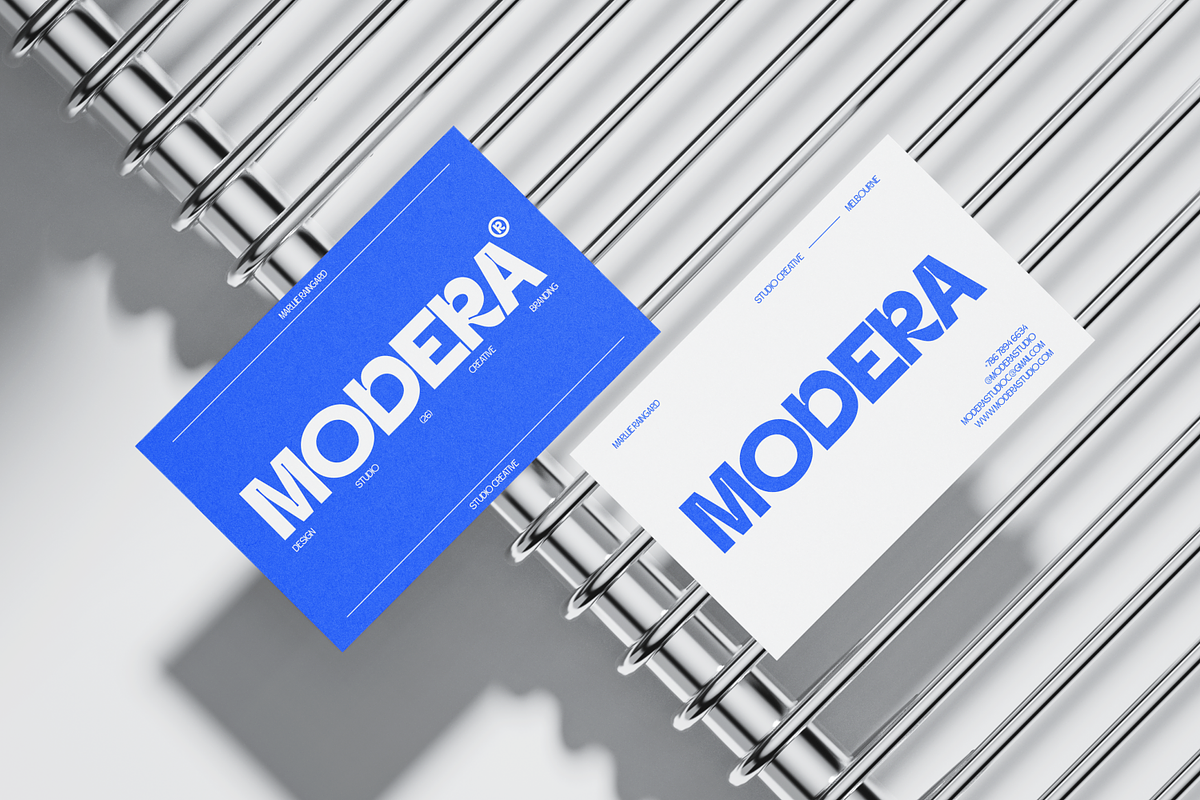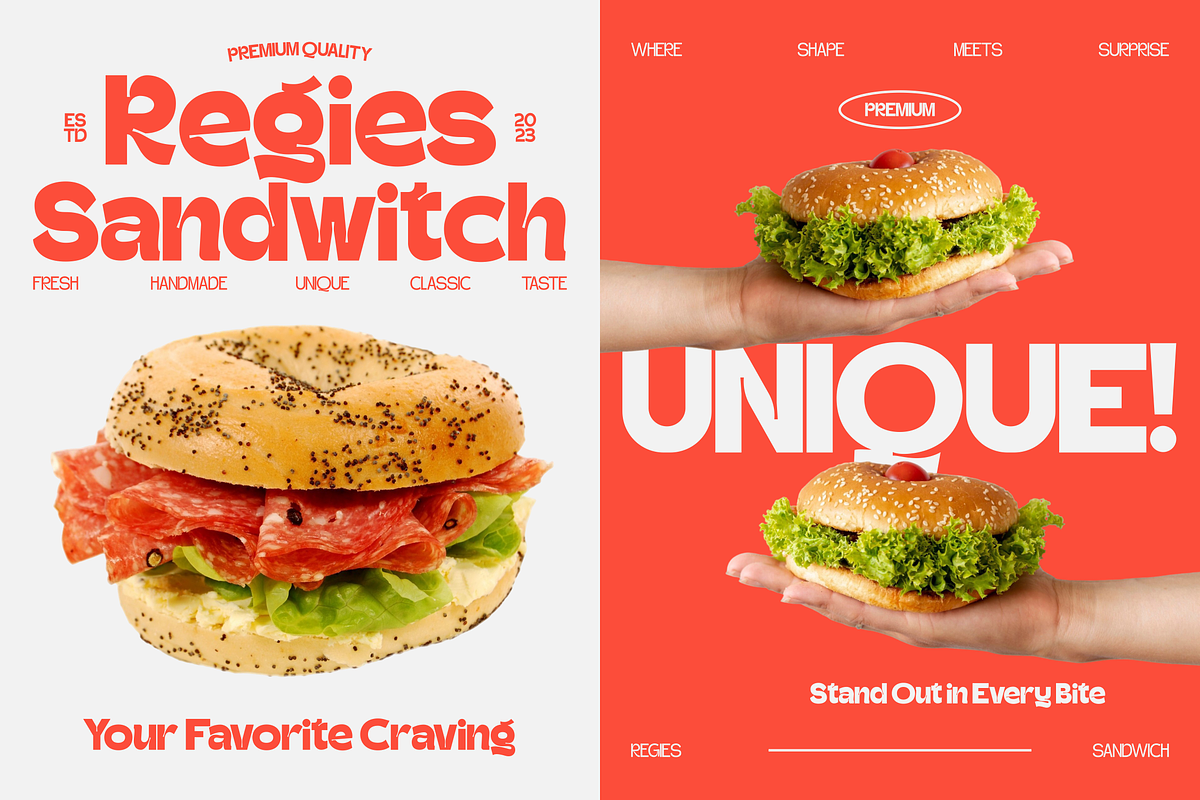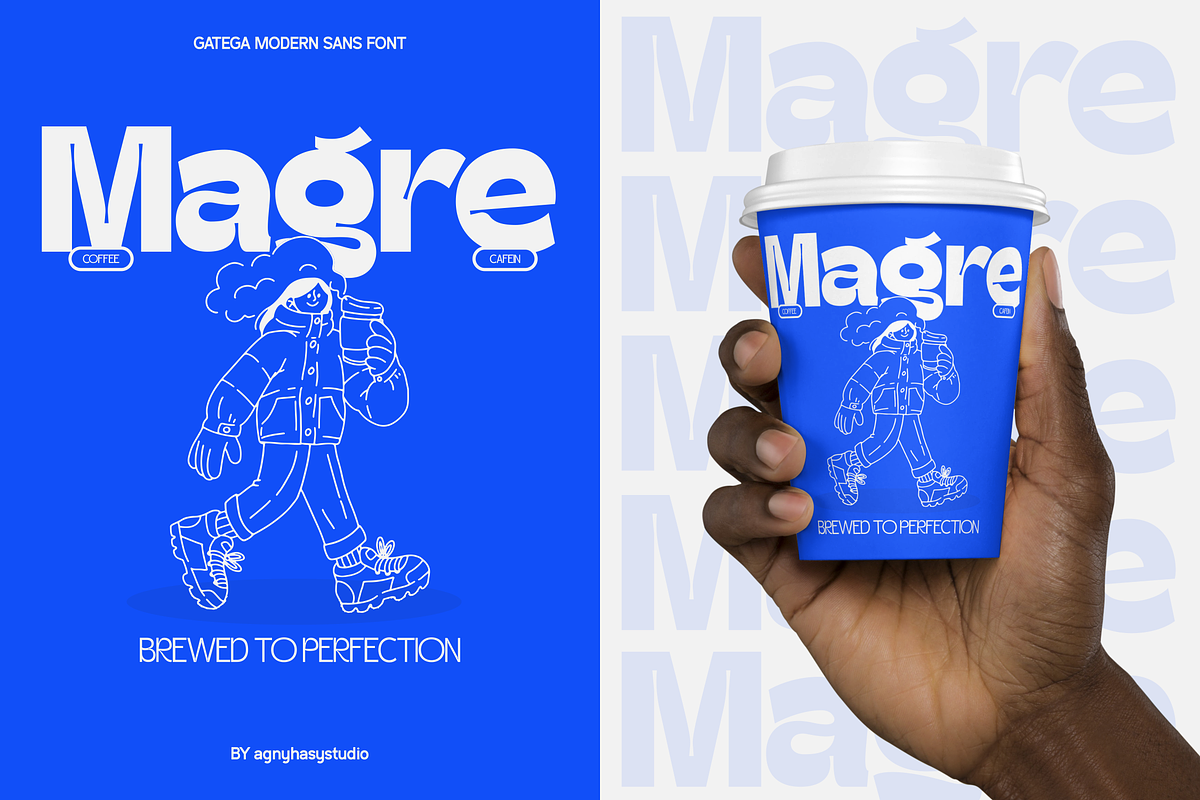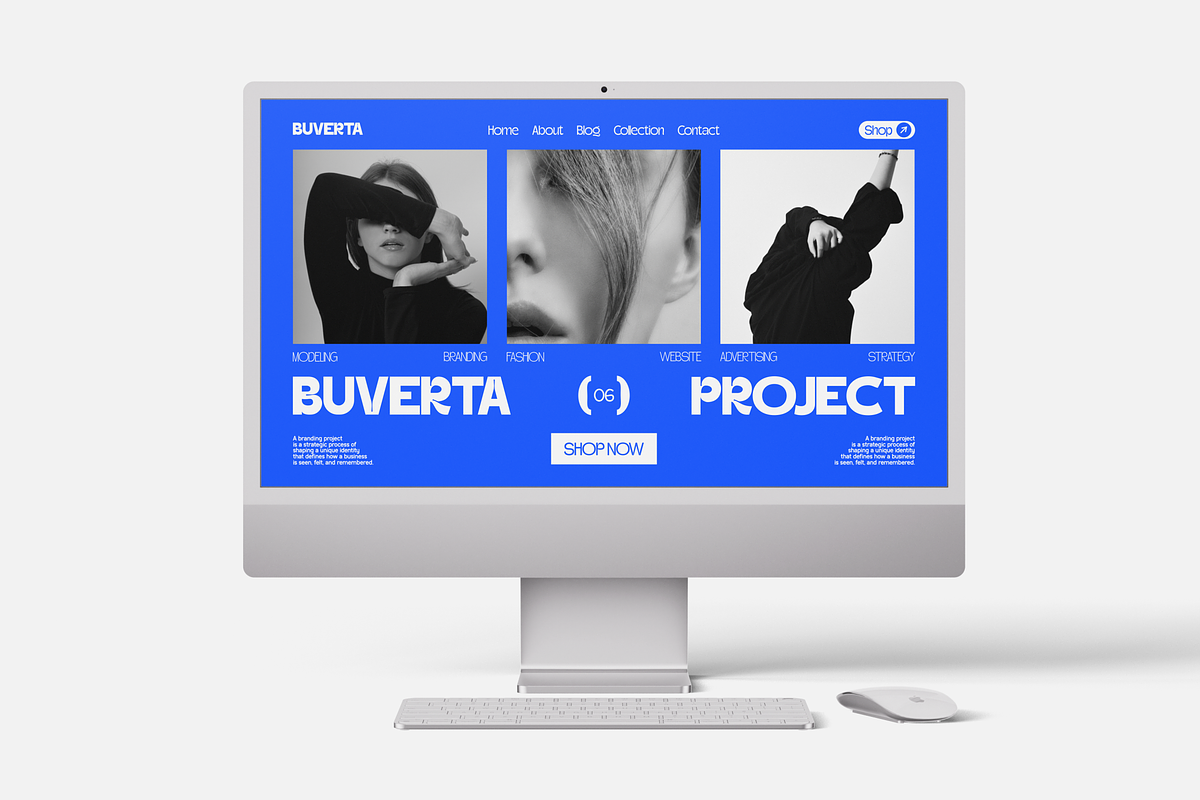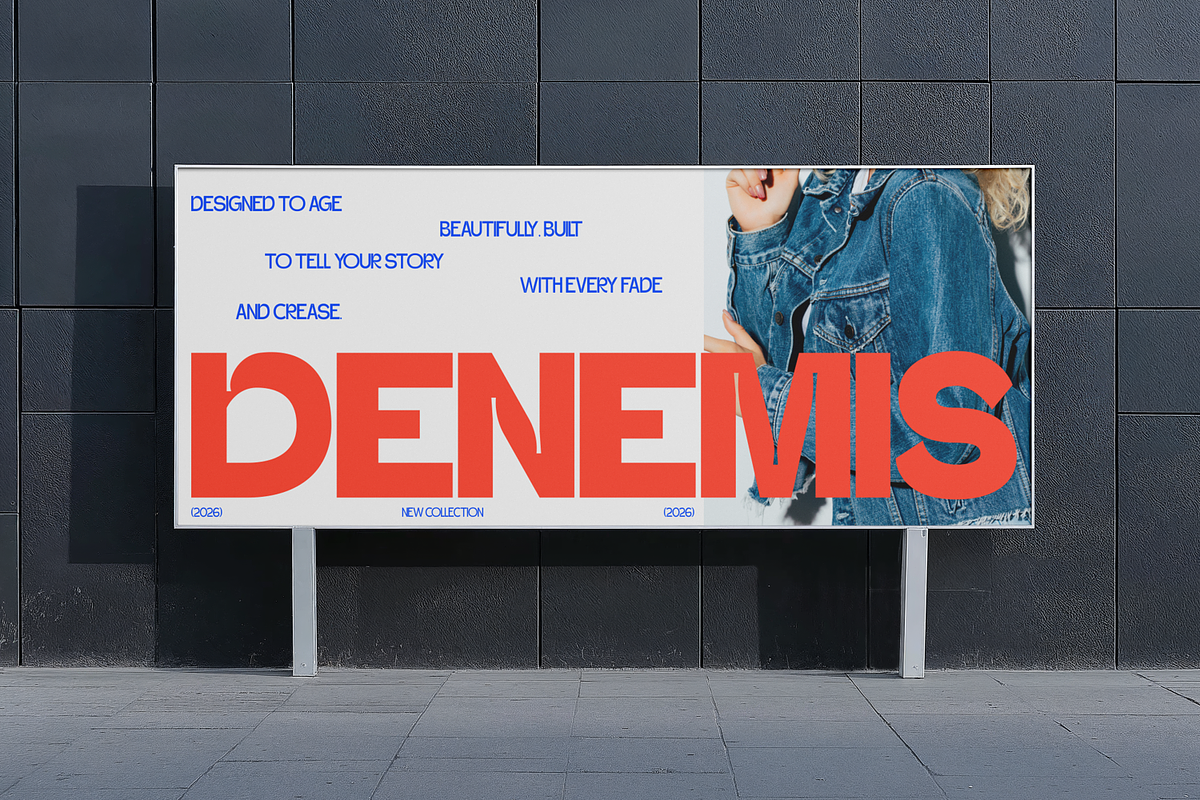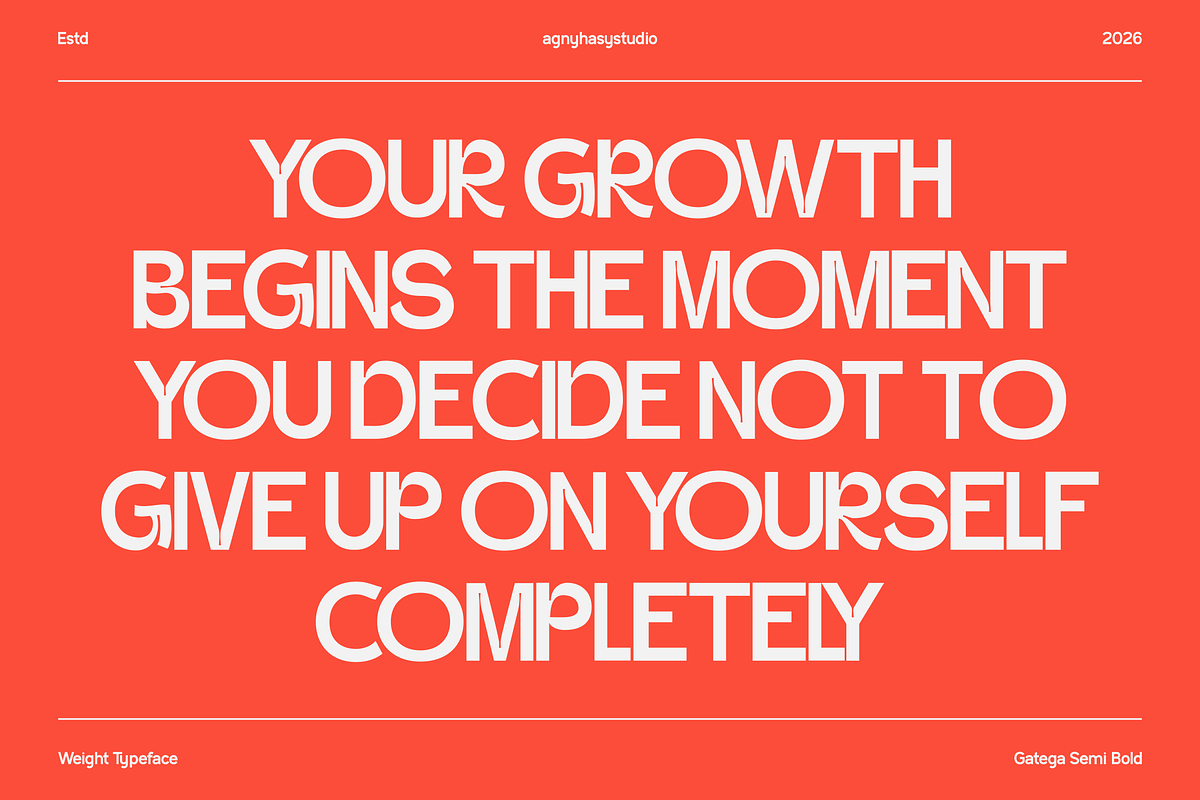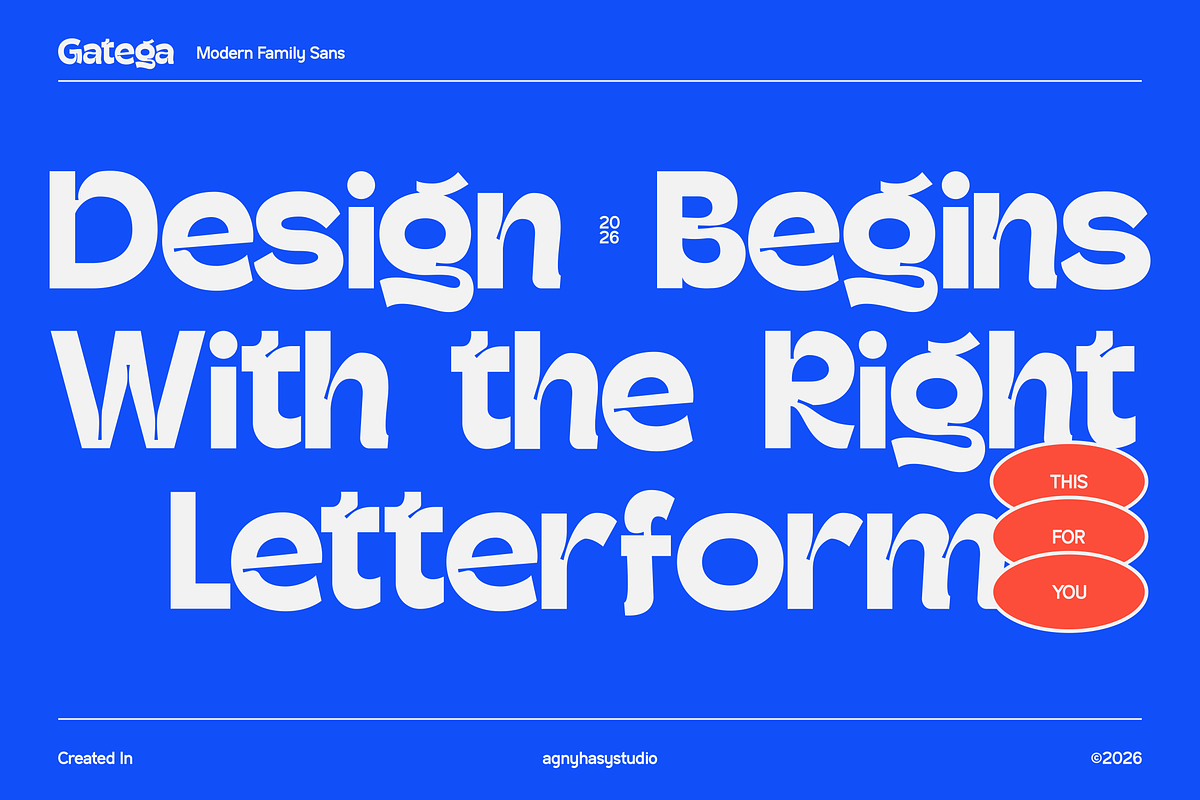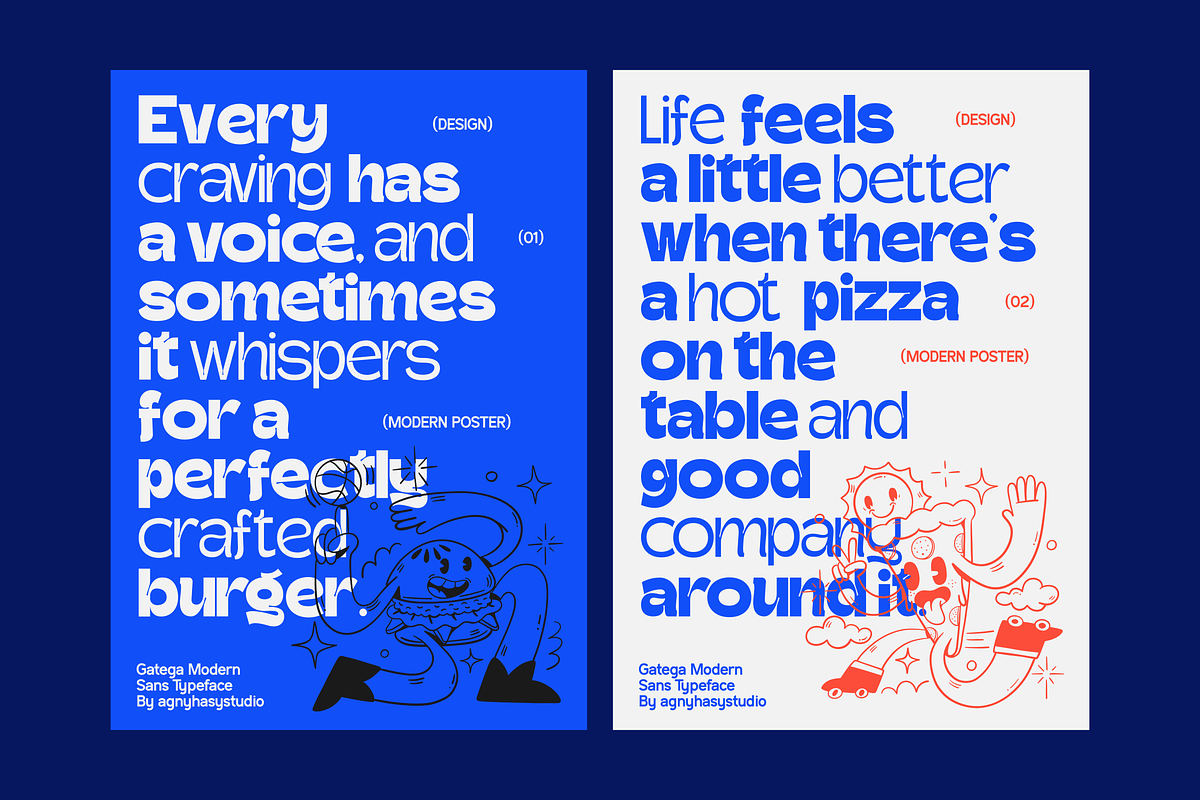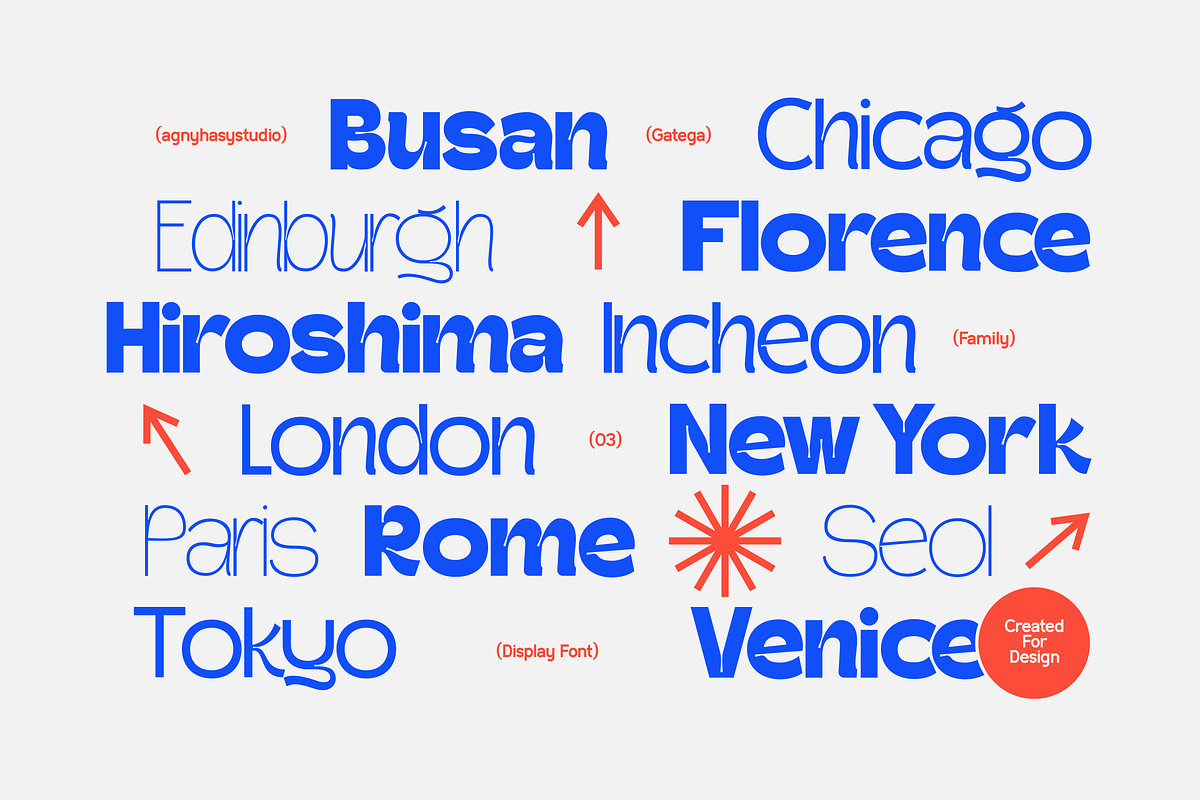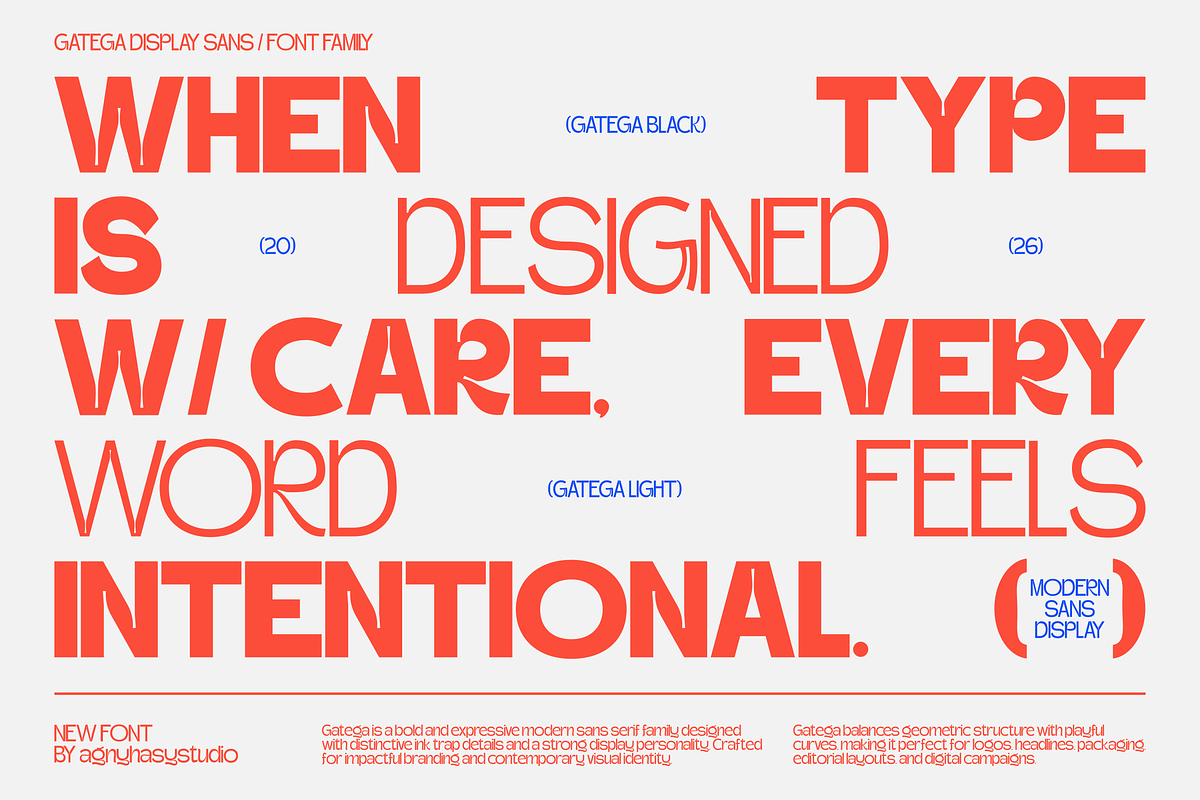
Gatega - Modern Inktrap Sans Family
Gatega is a bold and expressive modern sans serif family designed with distinctive ink-trap details and a strong display personality. Crafted for impactful branding and contemporary visual identity, Gatega balances geometric structure with playful curves, making it perfect for logos, headlines, packaging, editorial layouts, and digital campaigns.
Featuring a complete Thin to Black weight range, Gatega offers flexibility for modern typography systems from elegant minimal layouts to powerful statement designs. The exaggerated ink-trap shapes add character and uniqueness while maintaining readability across various sizes.
Ideal for creative studios, tech startups, brands, FMCG packaging, motion graphics, and social media visuals, Gatega delivers a confident, contemporary look that stands out in competitive markets.